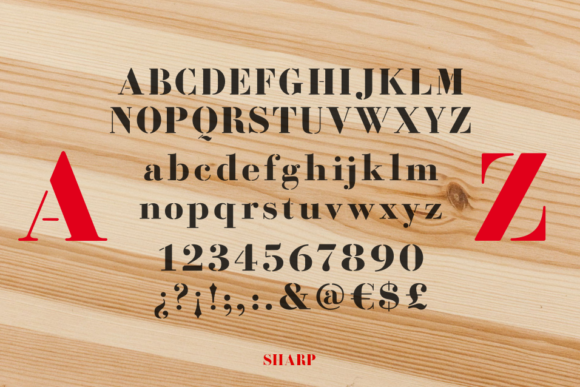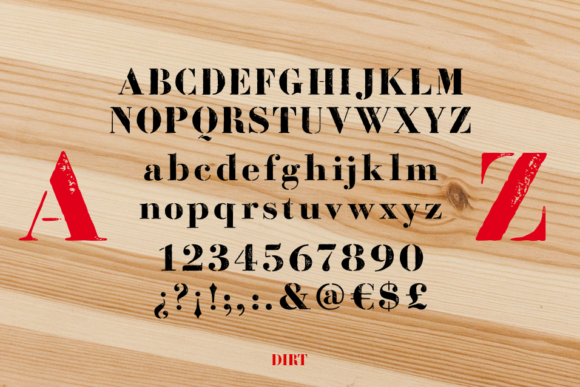
Bodoni Fragile Font: A Timeless Elegance for Modern Design
The Bodoni Fragile font is a stunning example of elegant typography, boasting a fragile yet refined aesthetic that captures the essence of classic design. This beautiful serif font is perfect for designers and crafters seeking to add a touch of sophistication to their projects. Whether it’s for web, print, moving images, or any other medium, Bodoni Fragile feels equally charming and elegant, making it an excellent choice for a wide range of applications.
The Origins of Bodoni Fragile
Bodoni Fragile is an evolution of the classic Bodoni typeface, designed by Italian typographer Giambattista Bodoni in the late 18th century. The original Bodoni font was known for its strong, elegant lines and refined serifs, which made it an instant favorite among printers and designers. The Fragile version takes this classic design and adds a delicate, fragile quality, making it perfect for modern designs that require a touch of sophistication and elegance.
Key Features of Bodoni Fragile Font
Bodoni Fragile boasts several key features that make it an attractive choice for designers and crafters:
- Elegant Serif Design: Bodoni Fragile features a beautiful, refined serif design that adds a touch of elegance to any project.
- Delicate Lines: The font’s delicate lines and fragile aesthetic make it perfect for designs that require a subtle, sophisticated look.
- High Versatility: Bodoni Fragile is highly versatile, making it suitable for a wide range of applications, from web design to print, and even moving images.
- Classic yet Modern: The font’s classic design is perfectly balanced with modern elements, making it an excellent choice for designers seeking to create timeless, yet contemporary designs.
Use Cases for Bodoni Fragile Font
Bodoni Fragile is an incredibly versatile font that can be used in a variety of contexts, including:
- Web Design: Add a touch of elegance to your website with Bodoni Fragile, perfect for luxury brands, fashion websites, and more.
- Print Design: Use Bodoni Fragile for print materials such as brochures, business cards, and posters to create a sophisticated, high-end look.
- Moving Images: Bodoni Fragile is perfect for use in film and video titles, adding a touch of elegance and sophistication to your project.
- Crafting and DIY Projects: Add a personal touch to your crafting and DIY projects with Bodoni Fragile, perfect for creating beautiful, handmade cards, invitations, and more.
Tips for Using Bodoni Fragile Font
To get the most out of Bodoni Fragile, here are a few tips to keep in mind:
- Pair with Simple Backgrounds: Bodoni Fragile looks best when paired with simple, clean backgrounds that allow the font to take center stage.
- Experiment with Font Sizes: Don’t be afraid to experiment with different font sizes to create visual interest and hierarchy in your design.
- Use for Headings and Titles: Bodoni Fragile is perfect for use in headings and titles, adding a touch of elegance and sophistication to your design.
| Font Name | Bodoni Fragile Font |
| Author | Mario Arturo |
Bodoni Fragile is a stunning serif font that offers a unique blend of elegance and sophistication. Whether it’s for web, print, moving images, or any other medium, this beautiful font is sure to make your design stand out. With its delicate lines, refined serifs, and high versatility, Bodoni Fragile feels equally charming and elegant, making it an excellent choice for designers and crafters seeking to create timeless, yet contemporary designs.